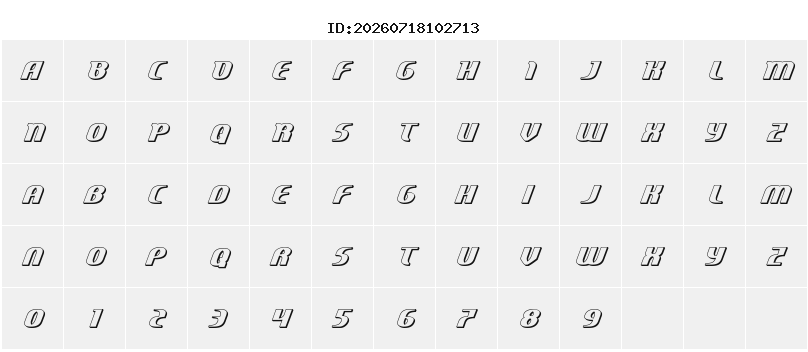
• Font Name: Centaurus 3D
• Full Font Name: Centaurus 3D
About Centaurus 3D.ttf
Centaurus 3D.ttf is a modern, elegant sans-serif font designed for ultimate readability and visual harmony. Perfect for branding, headlines, web design, and print materials.